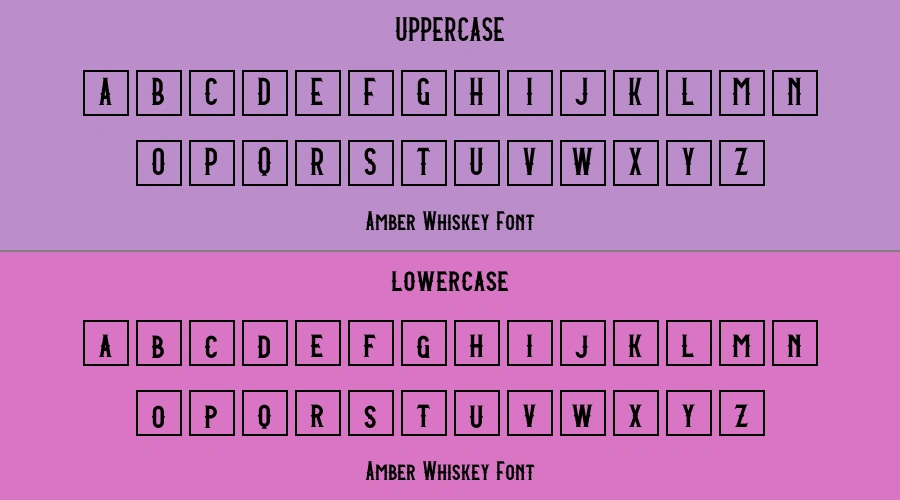
About Amber Whiskey Font
When typographic excellence matters most, Amber Whiskey Font delivers through its thoughtful blend of flourishes and refinement. Specially crafted for product naming, it offers the authenticity and practical utility required for sophisticated design work. Every detail serves a purpose.
The character set showcases thoughtful details like graceful serifs alongside functional terminal forms. This proves especially valuable in advertisements, where color consistency directly influences results. Particular attention was paid to ear formation and regulatory compliance during development.